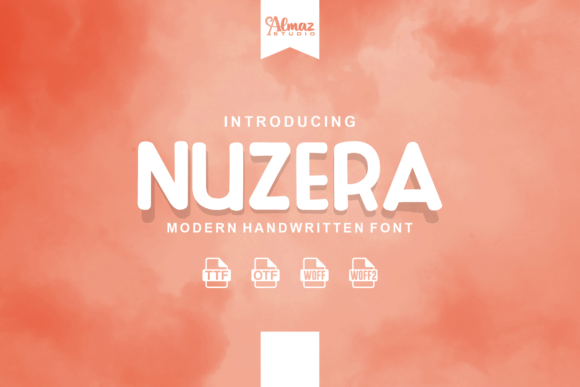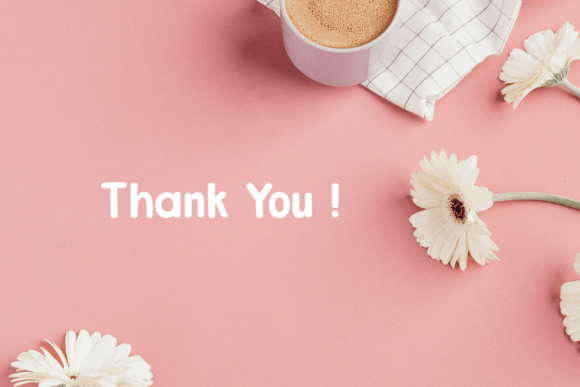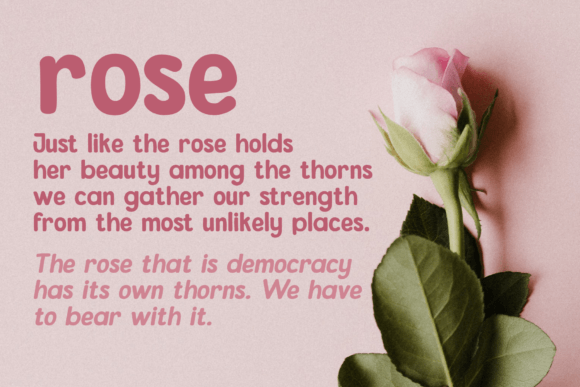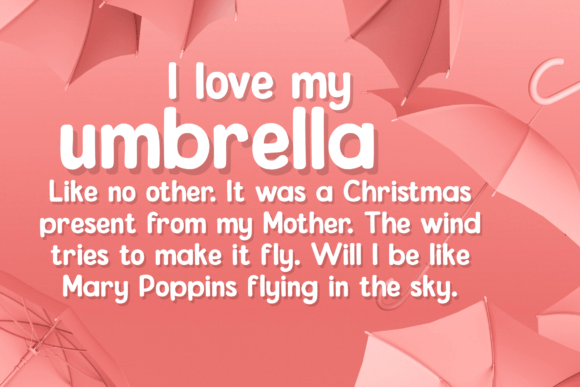
About Nuzera Font
Introducing Nuzera, a font meticulously crafted for text display purposes, drawing inspiration from handwritten styles. This font is designed to empower you to create simple, clean, and cool logos, branding elements, and promotional materials effortlessly. Nuzera brings a modern and strong impression to your designs, making it well-suited as the main text or header text on websites or layout designs.
Nuzera’s clean and modern aesthetic makes it versatile for a variety of applications. Whether you’re creating blog titles, headers, promotional text, calls to action, or other text display elements, this font adds a touch of sophistication and strength to your design.
The simplicity and clarity of Nuzera make it an excellent choice for creating a strong visual impact. Its modern appearance ensures that it stands out and conveys your message effectively in different contexts, from digital platforms to print materials.
This font is not just a tool for creating text; it’s a design asset that allows you to communicate with a modern and stylish flair. Download Nuzera now and explore how it can elevate your text display elements, providing a clean and contemporary look that suits a range of design needs. Whether you’re working on branding, website design, or promotional materials, Nuzera is ready to make a strong impression with its modern and versatile style.